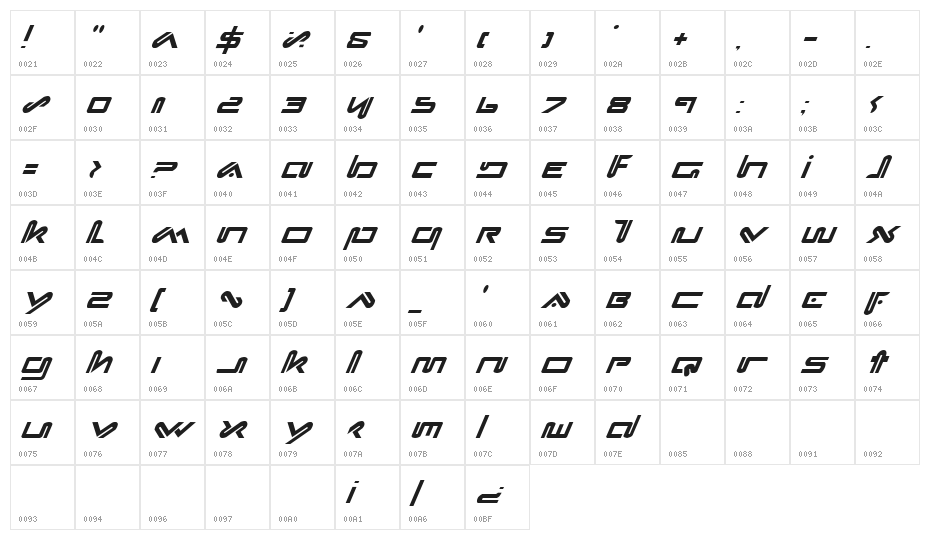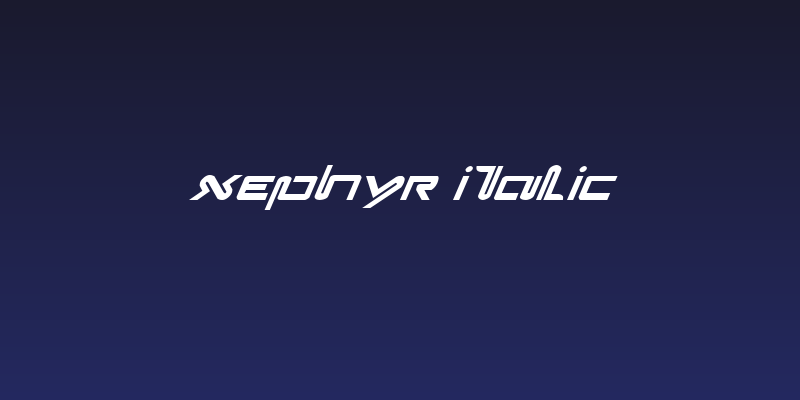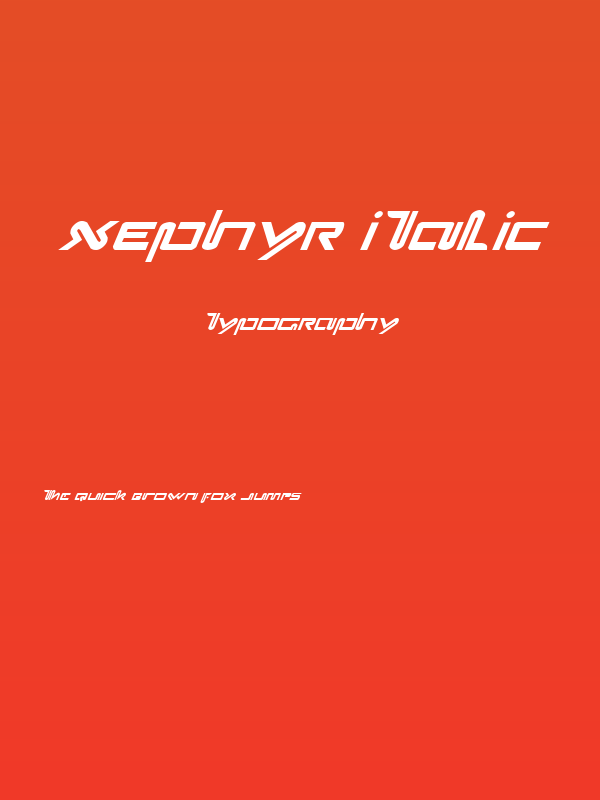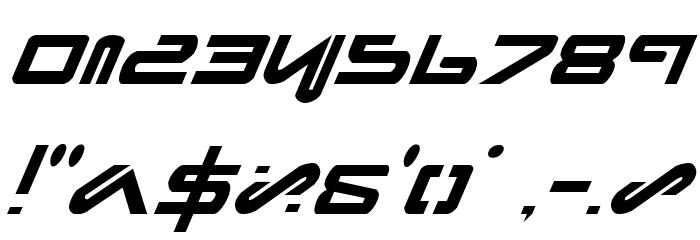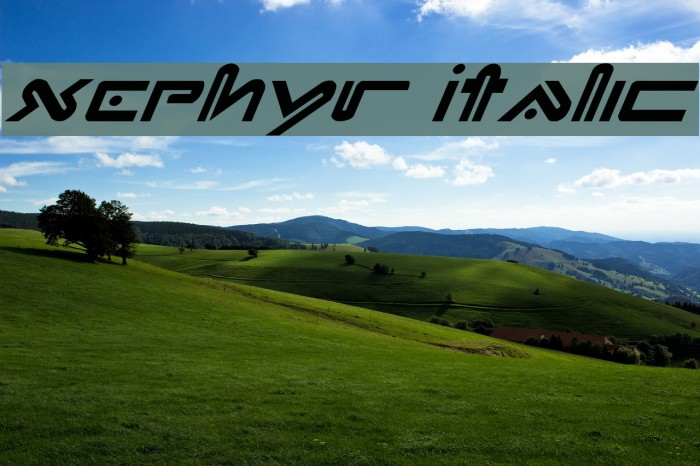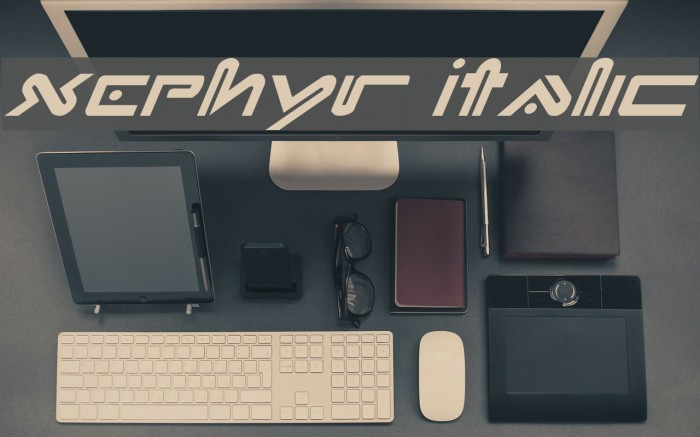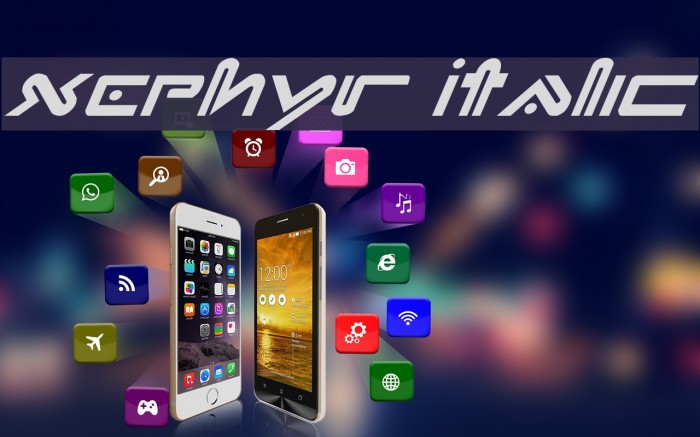
Xephyr Italic Font
Xephyr Italic Description
This font features a futuristic and dynamic design with a strong italic slant, giving it a sense of motion and speed. The characters are crafted with sharp angles and geometric shapes, creating a sleek and modern appearance. The uppercase and lowercase letters maintain a consistent style, with unique cutouts and strokes that add to its distinctiveness. Numbers and special characters are designed to match the overall aesthetic, ensuring uniformity across all glyphs. The font's bold presence makes it suitable for attention-grabbing designs.
| Proposed Projects | Ideal for sci-fi themed projects, technology branding, video game titles, and modern advertising campaigns. |